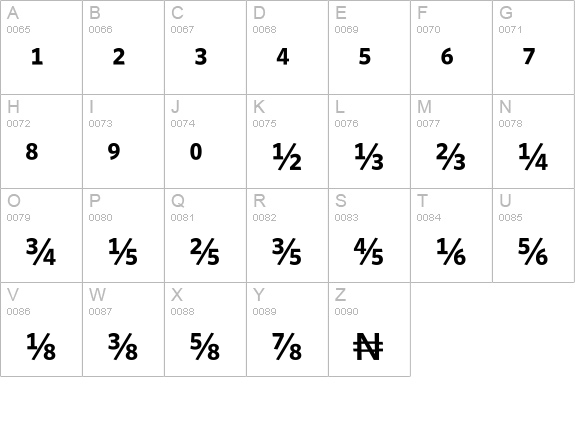
WhitneyNumeric-Semibold is a sub-bold, structured variant in the WhitneyNumeric typeface family \xE2\x80\x94 well suited to sub-headlines and emphasised passages.
WhitneyNumeric-Semibold is a stylish and modern font that is perfect for various design projects. With its clean lines and bold appearance, it adds a touch of sophistication to any layout or composition. This versatile typeface is specifically designed for numerical use, making it ideal for creating eye-catching charts, graphs, and infographics. The WhitneyNumeric-Semibold font stands out with its unique blend of readability and aesthetic appeal. Its distinct and well-defined characters ensure legibility even at smaller sizes, making it suitable for both print and digital mediums. Whether you are designing a financial report, a statistical analysis, or a data-driven presentation, this font will bring clarity and professionalism to your work. One of the best parts about WhitneyNumeric-Semibold is that it is available for free! You can easily download this font from FontsMarket.com and start using it in your projects right away. By offering this font at no cost, it allows designers and creatives to access high-quality typography without any financial constraints. With WhitneyNumeric-Semibold, you can add a touch of elegance and sophistication to your designs while maintaining clear and concise numerical representations. So why wait? Go ahead and explore the endless possibilities that this font has to offer. Download WhitneyNumeric-Semibold today from FontsMarket.com and take your design projects to the next level.